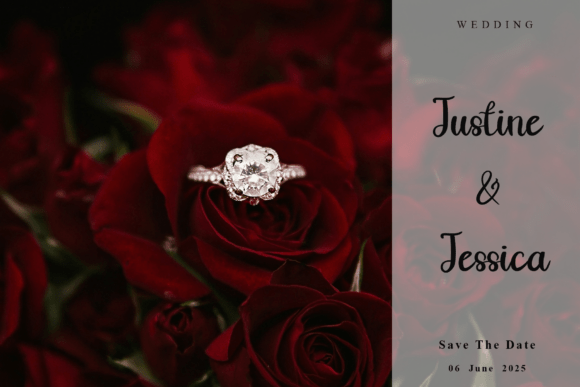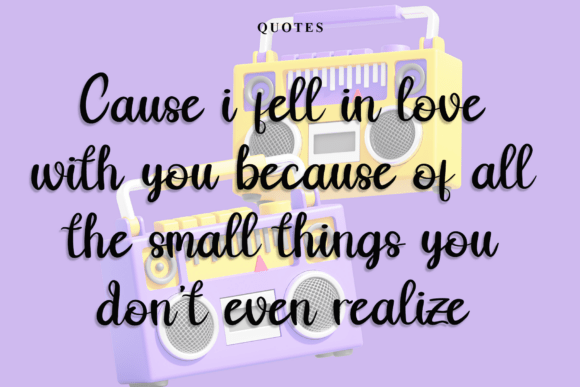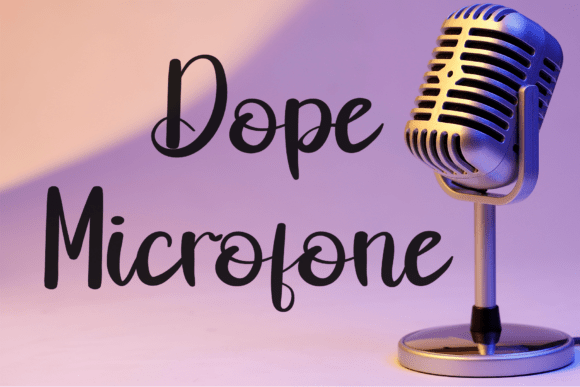
Introduction to Blur Retro Font
As a designer, there’s nothing quite like the thrill of bringing a creative project to life. You spend hours pouring over inspiration, sketching out ideas, and experimenting with different styles – and then, suddenly, it all comes together in a beautiful, cohesive design. That’s exactly what happens when you add the perfect font to your project. For me, that font is often the Blur Retro Font, a sweet and cursive handwritten font that adds a touch of whimsy and romance to any design.
Whether you’re working on a branding project, creating a wedding invitation, or designing a marketing campaign, the Blur Retro Font is the perfect addition to take your design to the next level. Its gentle, elegant style is both high-quality and easy to use, making it a valuable resource for designers of all levels.
Key Features of Blur Retro Font
- Unique Blend of Vintage and Retro Elements: Blur Retro Font combines the nostalgia of classic fonts with modern design sensibilities, making it perfect for creative projects that require a touch of the past.
- High-Quality Design Resource: This font is designed with precision and care, ensuring a crisp and clear appearance in various design applications.
- Transparent Background: The font’s transparent background allows for seamless integration with any design element, giving you complete creative control.
- Size and Resolution: The font is available in a range of sizes, from 12px to 72px, and is designed to be scalable without compromising its quality, making it perfect for use in various design projects.
- Perfect for Design Projects: Whether you’re working on a graphic design, digital art, or web design project, the Blur Retro Font is an excellent choice due to its versatility and high-quality design.
Honest Review: Blur Retro Font
I recently had the chance to work with the Blur Retro Font, and I’m excited to share my thoughts on this design resource. The Blur Retro Font is a high-quality font that’s perfect for creative projects that need a touch of nostalgia.
- ✨ High-quality design that looks great on both digital and print materials.
- ✨ Compatible with most design software, making it easy to incorporate into your project.
- ⚠️ Limited customization options, which might not be ideal for designers who like to experiment with different styles.
- ⚠️ No transparent background option, which can be a problem for designers who need to use the font on a transparent background.
Overall, I’m impressed with the Blur Retro Font’s design and versatility. While it may not be perfect for every project, it’s an excellent option for designers who need a high-quality font with a retro vibe. With a little creativity, you can achieve great results with this font.
How to Use Blur Retro Font
You can also use the Blur Retro Font in PowerPoint or Word to create engaging presentations and documents. With the font’s high-quality design, your text will look professional and stylish, even with a transparent background.
Tips for Getting the Most Out of Blur Retro Font
To get the most out of the Blur Retro Font, experiment with different font sizes, colors, and combinations with other fonts. You can also use the font in conjunction with graphics and images to create visually appealing designs.
The Blur Retro Font is perfect for a variety of creative projects, including graphic design, digital art, and even branding. Its unique design and high-quality texture make it an ideal choice for designers looking to add a touch of retro flair to their work.